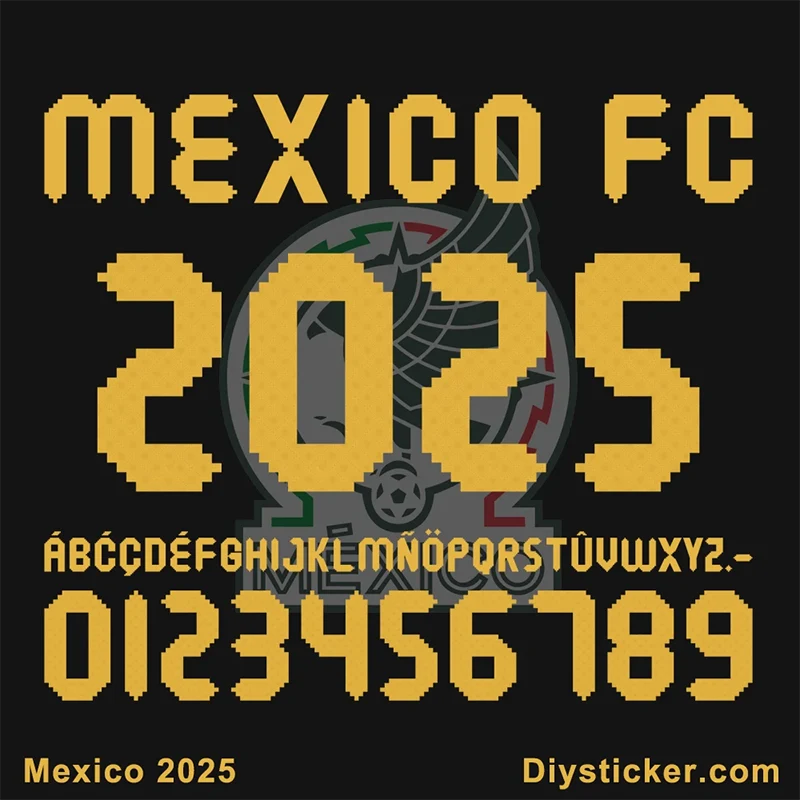
**Mexico FC 2025 Font** – Capture the energy of football with this authentic, high-energy typeface inspired by the Mexico National Team’s 2025 campaign. Perfect for:
– Jersey numbers & player names
– Sports logos, posters, and social media
– Fan merchandise and event promotions
**Features:**
✔ **Glyphs**: Full uppercase, numbers, multilingual support